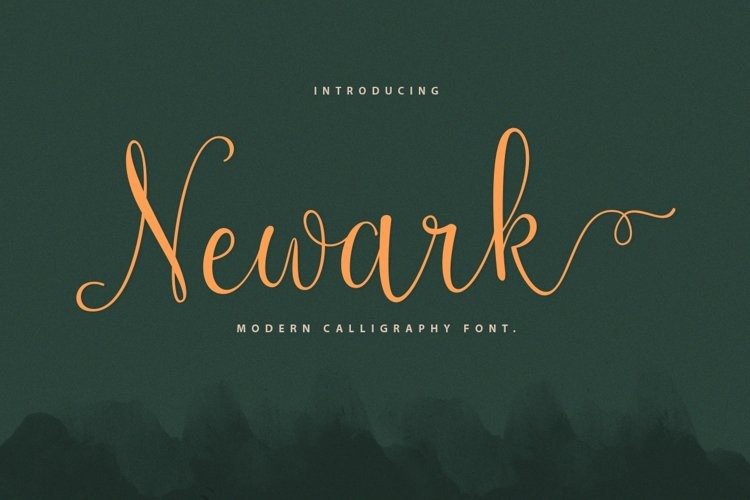
Newark Font
Introducing, Newark Calligraphy Font, a modern calligraphy typeface featuring basic variations, smooth lines, feminine and elegant touch. Made from font designer named sizimon. Newark is perfect for fashion, e-commerce brands, trend blogs, or any business that wants to appear classy and chic.